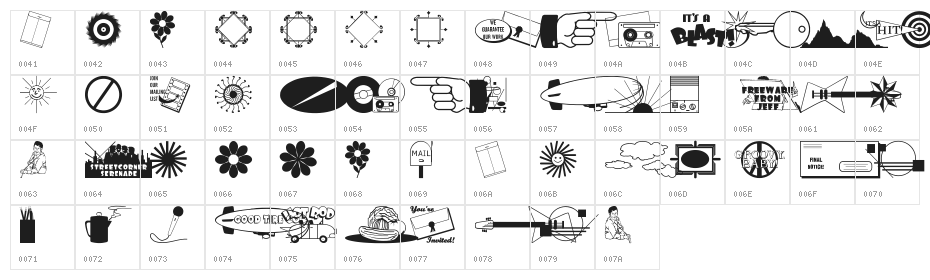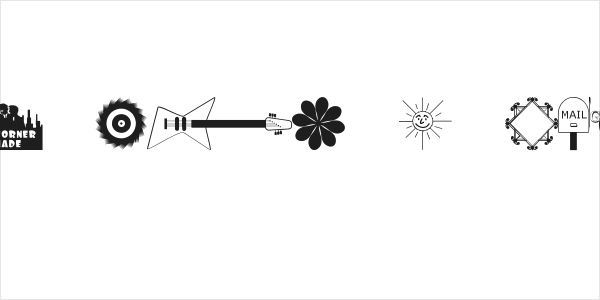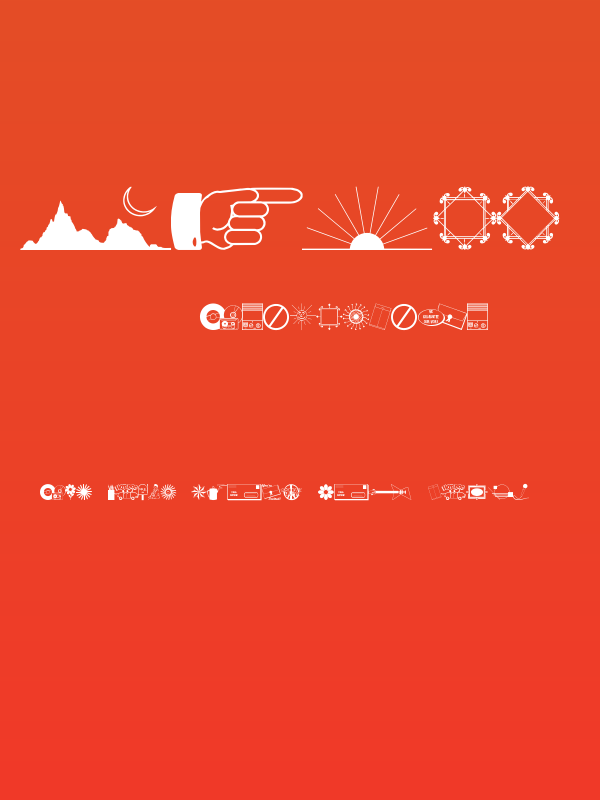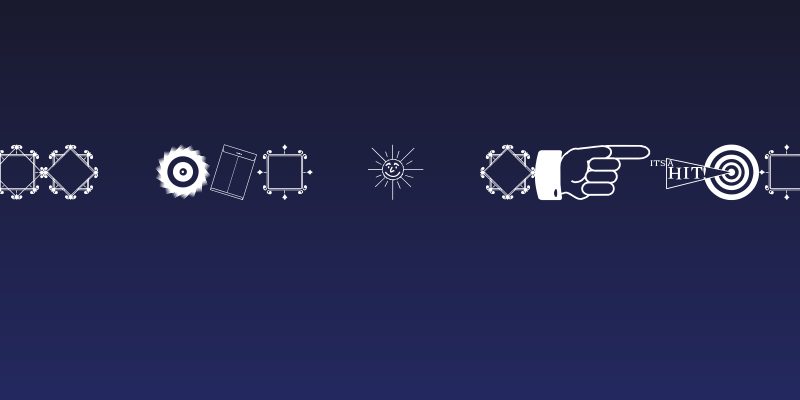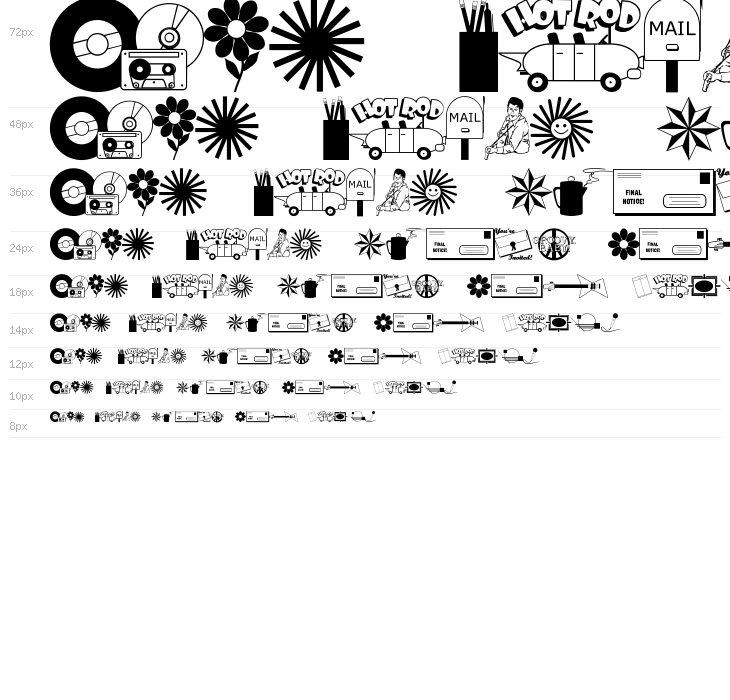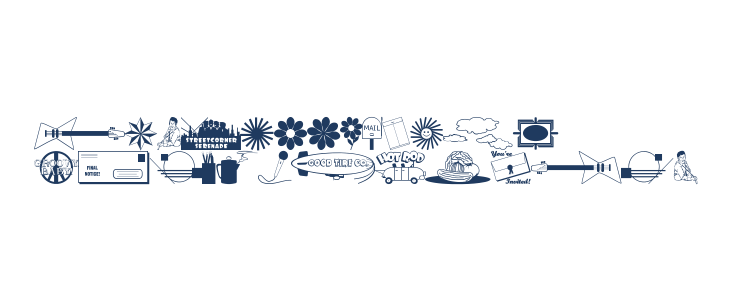
Mixed Bag O' Dings JL Font
Mixed Bag O' Dings JL Description
| Overall Style | Playful, Retro, Eclectic, Decorative |
| Use Case | Decorative elements, icons, embellishments, creative headings. |
| Proposed Projects | Posters, flyers, scrapbooking, invitations, decorative borders, educational materials, creative projects. |